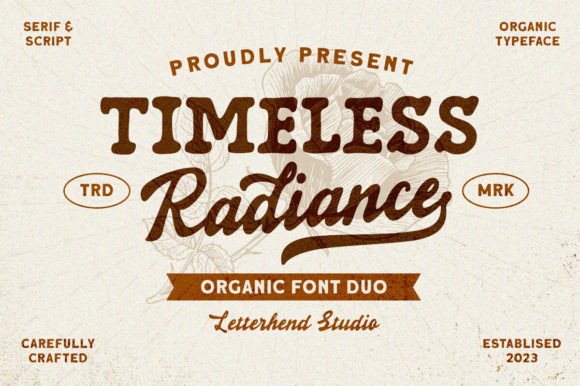
Introducing Timeless Radiance Font, the perfect choice for those seeking a font that exudes elegance, sophistication, and a touch of classic charm. This unique font duo, created by the talented team at letterhend, combines a bold script with a slab serif to create a harmonious blend of styles.
Ideal for a wide range of applications, Timeless Radiance Font is specifically designed to enhance your logo, headline, signage, and various formal forms. Its organic and flowing script creates a sense of effortless beauty, while the slab serif adds a touch of stability and professionalism.
Imagine your brand's logo beautifully crafted with the elegant curves and graceful strokes of Timeless Radiance Font. It instantly captures attention and creates a lasting impression on your audience. Whether you're designing invitations, labels, magazines, books, or greeting cards, this font will elevate your creations to new heights.
In the world of fashion and beauty, Timeless Radiance Font is a game-changer. Its sophisticated aesthetic perfectly complements packaging designs, makeup products, and stationery. Your brand will radiate confidence and style, leaving a lasting impact on your customers.
But it doesn't stop there. Timeless Radiance Font is also a must-have for authors, as it adds a touch of elegance to novels, book covers, and labels. Its versatility knows no bounds, making it a valuable asset for any type of advertising purpose.
Now, let's talk about the emotions this font evokes. Picture a luxurious wedding card adorned with the delicate curves of Timeless Radiance Font. It instantly transports you to a world of romance and beauty. The subtle yet powerful emotions it evokes will captivate not only the couple but also their guests, leaving a lasting impression of love and celebration.
In summary, Timeless Radiance Font is not just a font. It's an experience, a journey into the realm of timeless beauty, elegance, and sophistication. Its captivating design and versatility make it a must-have for designers, marketers, and creators alike. Elevate your brand, captivate your audience, and leave a lasting impression with Timeless Radiance Font.